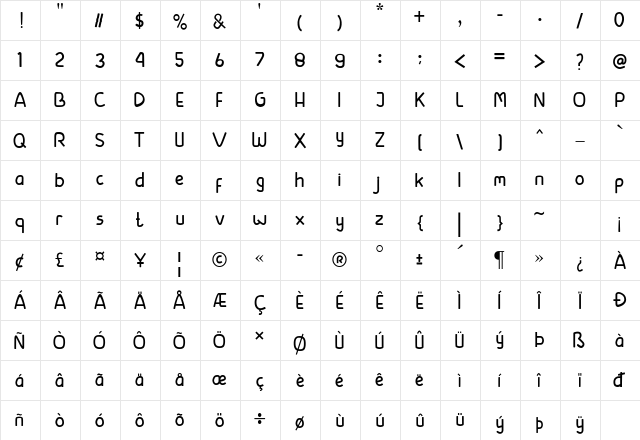
beside Regular
| Designer | Hedy.mf |
Design Context for beside Typeface
beside is a composed and adaptable typeface that performs quietly and consistently across a wide range of design contexts.